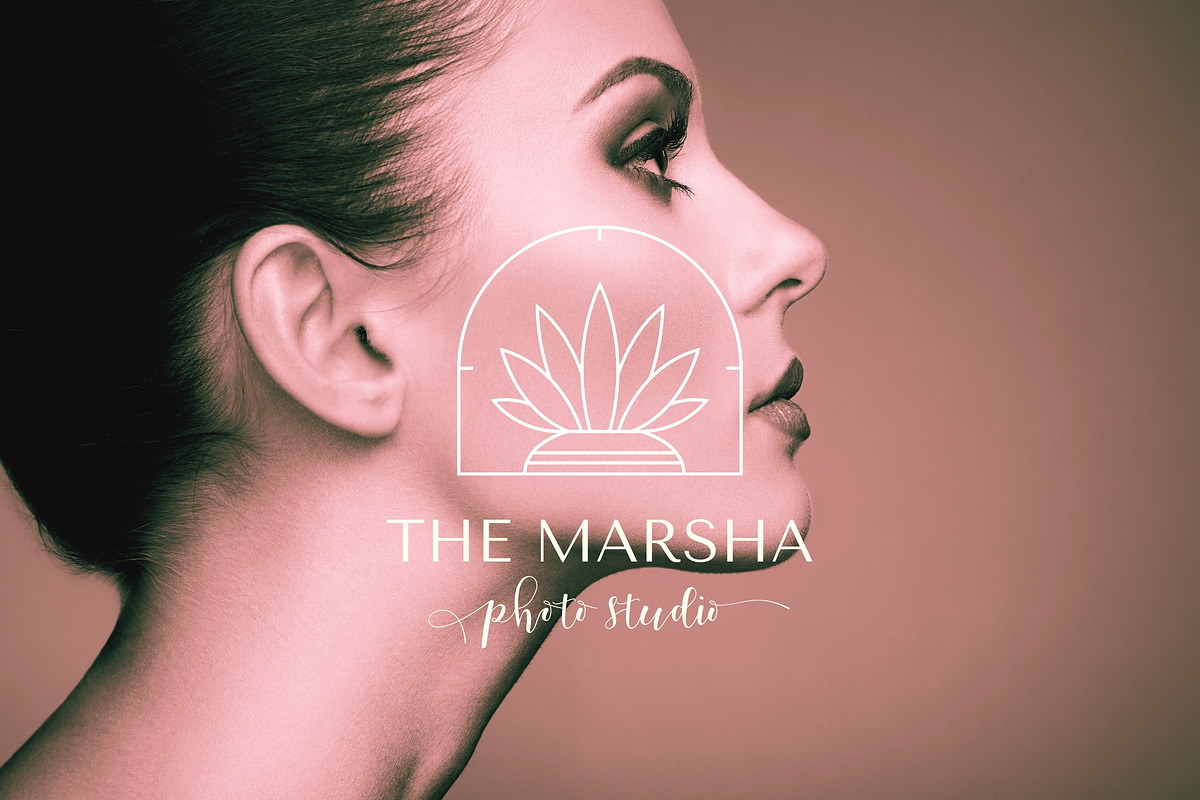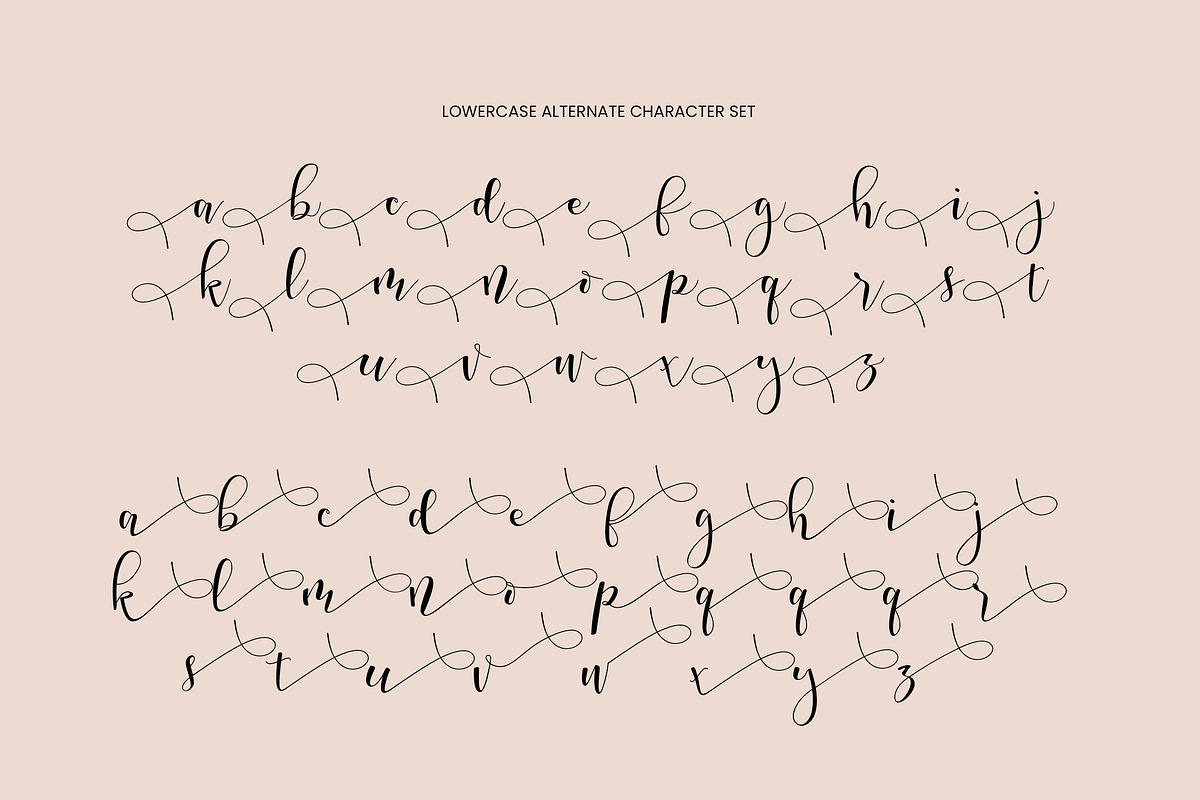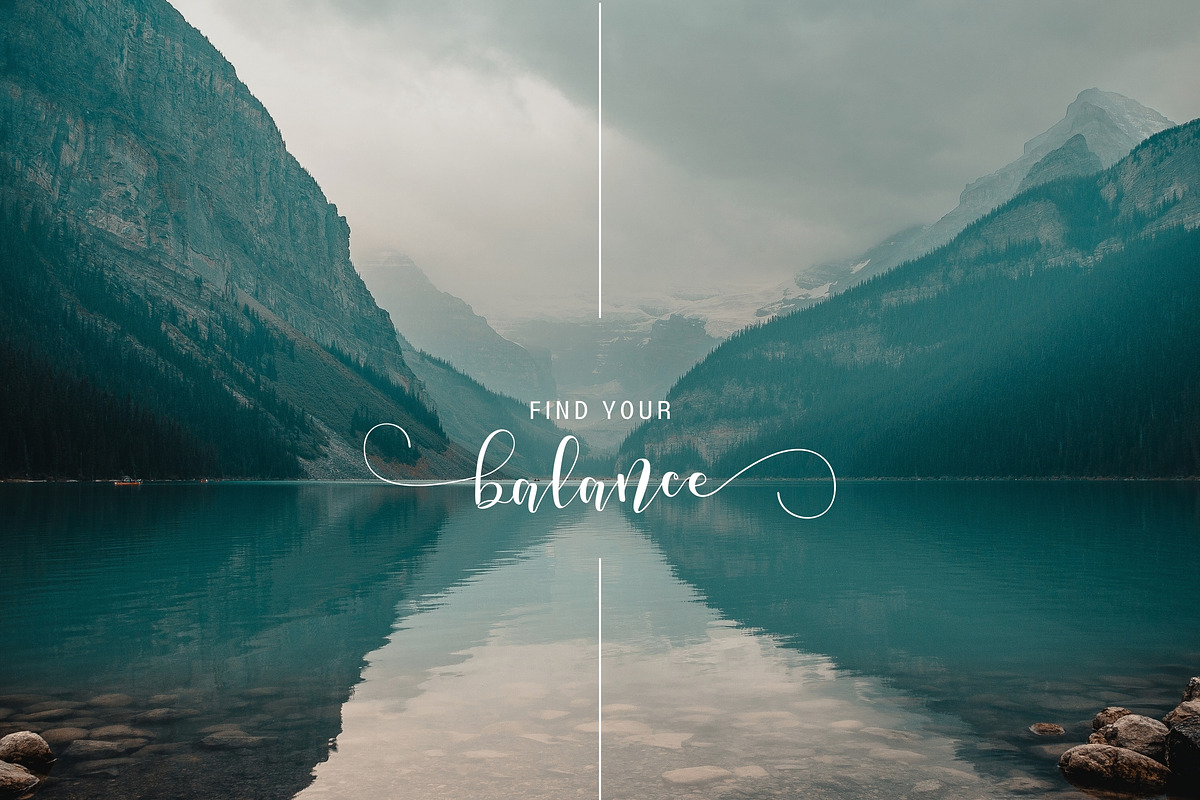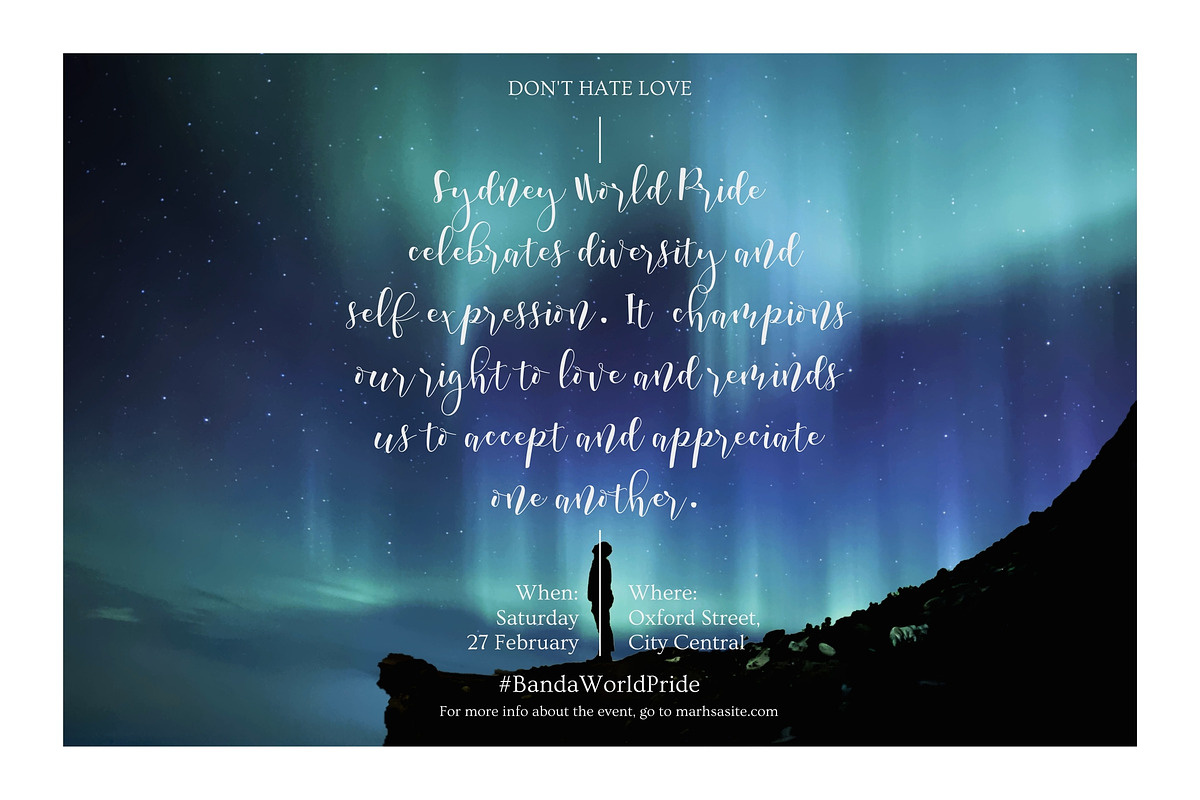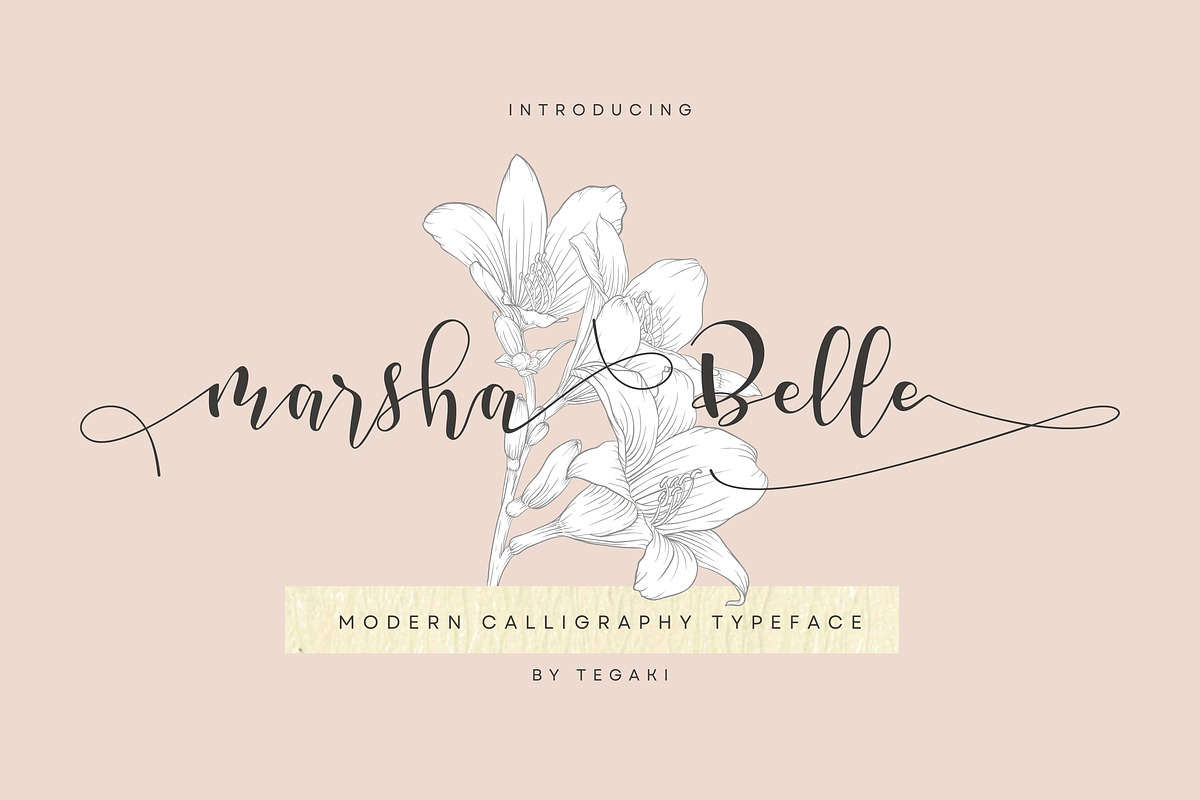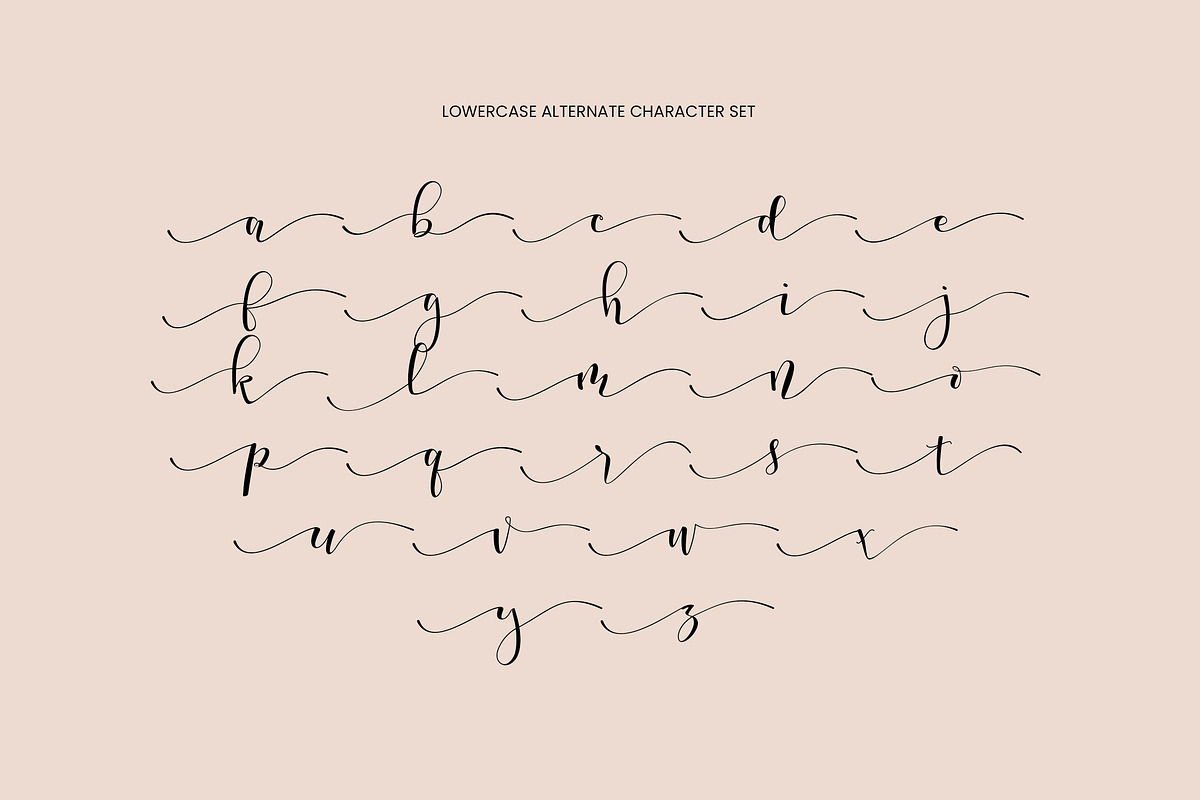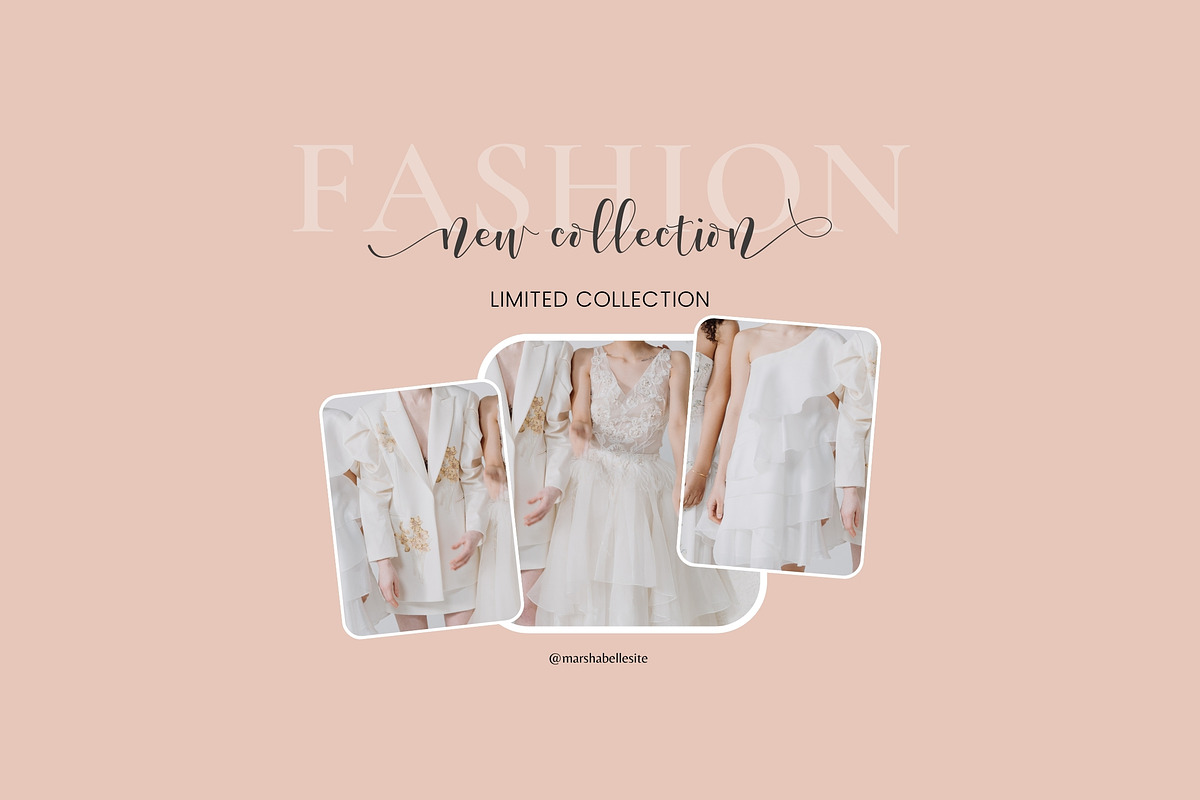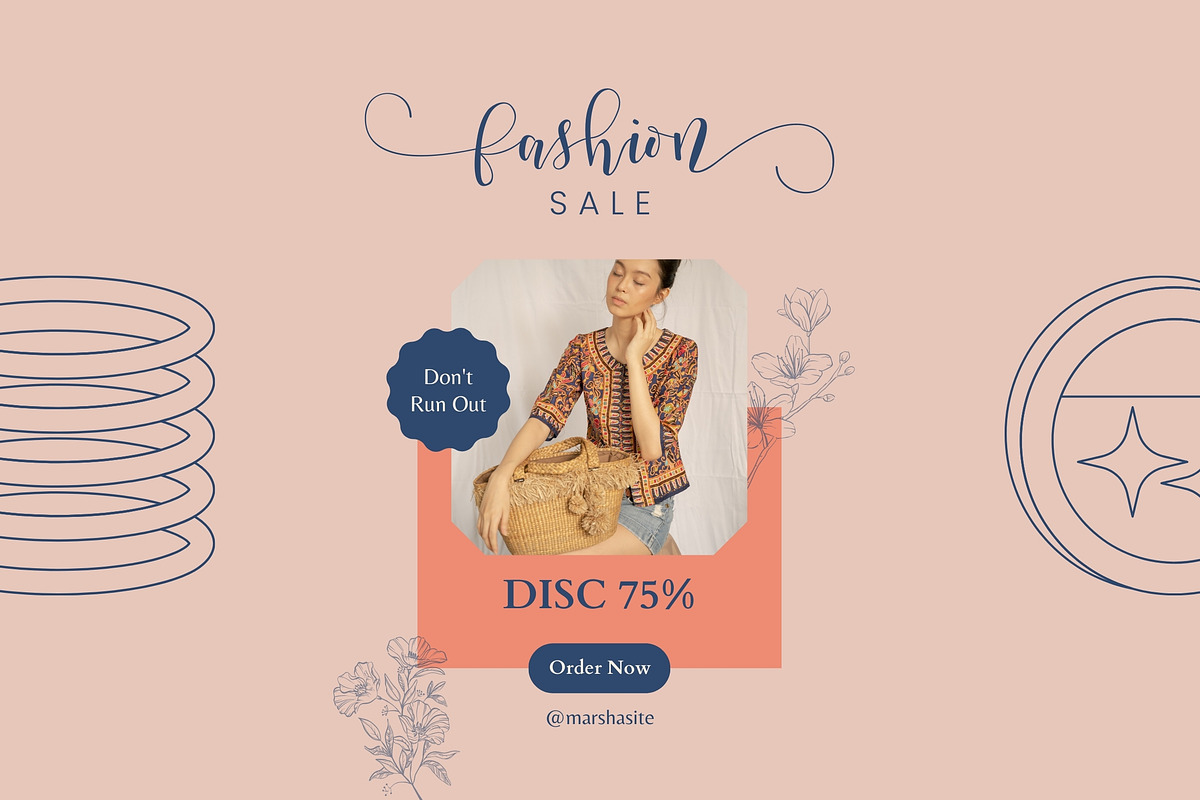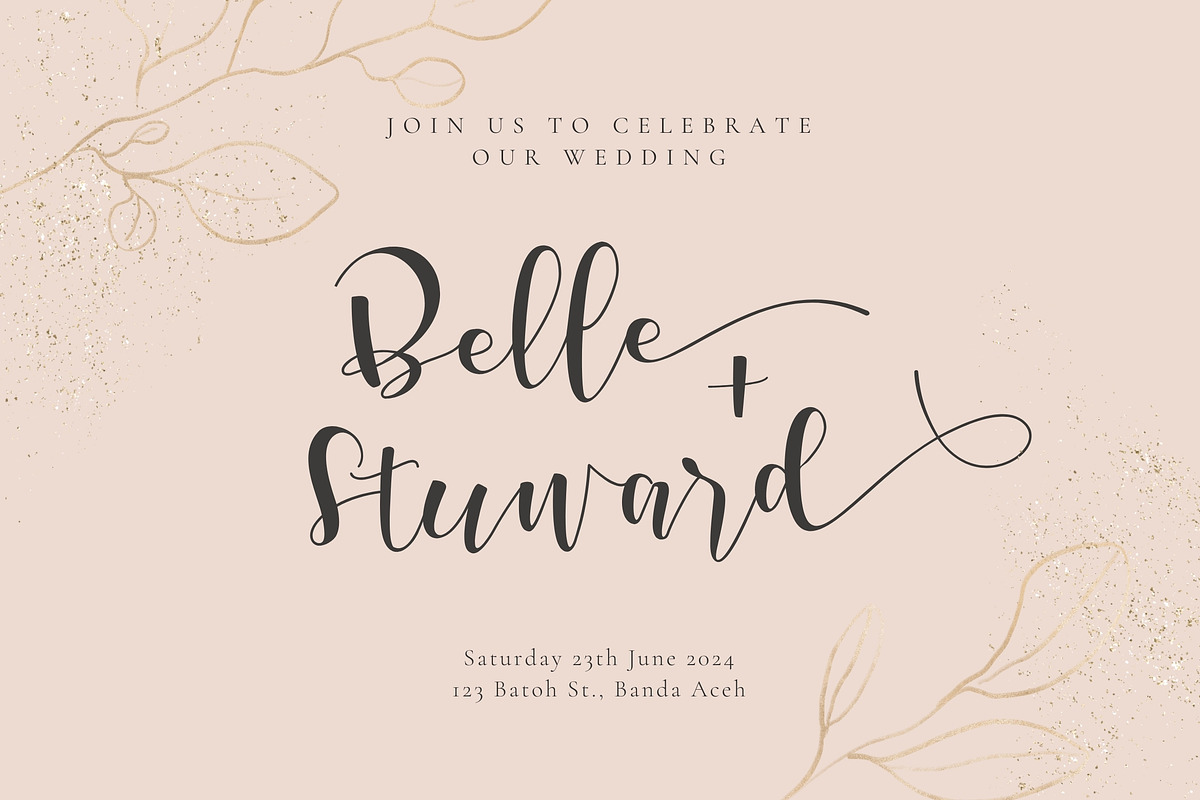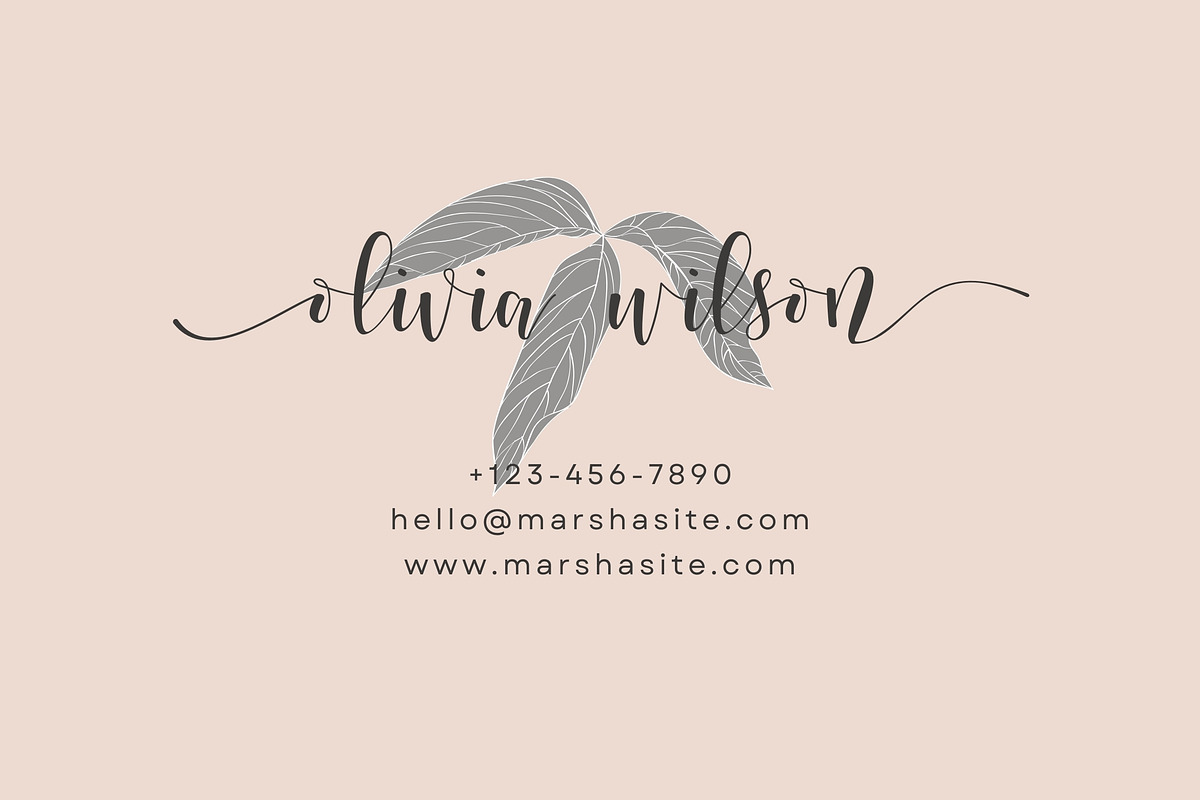
Marsha Belle
Introducing Marsha Belle: Where Modern Calligraphy Meets Timeless Elegance!
Designed by Tegaki Script
Elevate your designs with Marsha Belle, a stunning lettering typeface that dances gracefully along the page with its captivating up and down baseline. Perfectly suited for a myriad of applications, this font adds a touch of sophistication to any project.
Whether you're crafting a memorable logo, designing exquisite wedding invitations, or curating eye-catching packaging, Marsha Belle delivers excellence with every stroke. Its versatility knows no bounds – from stylish apparel to captivating magazines, from captivating flyers to elegant brochures, Marsha Belle effortlessly transforms your vision into reality.
With an extensive library of 486 glyphs and 273 alternate characters, Marsha Belle offers boundless creative possibilities. Explore its opentype features, including Stylistic Alternates and Standard Ligatures, to infuse your designs with unparalleled charm and personality.